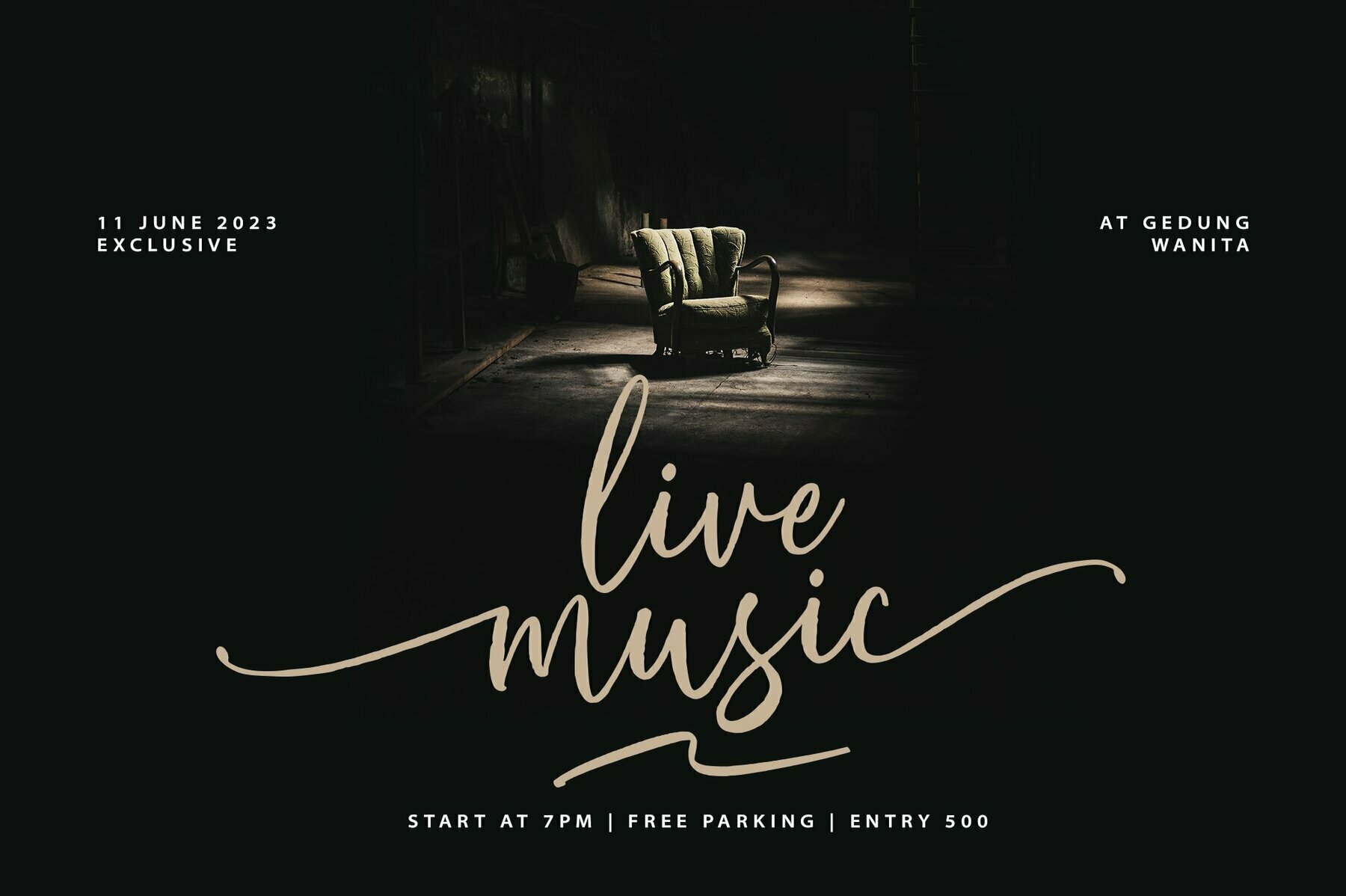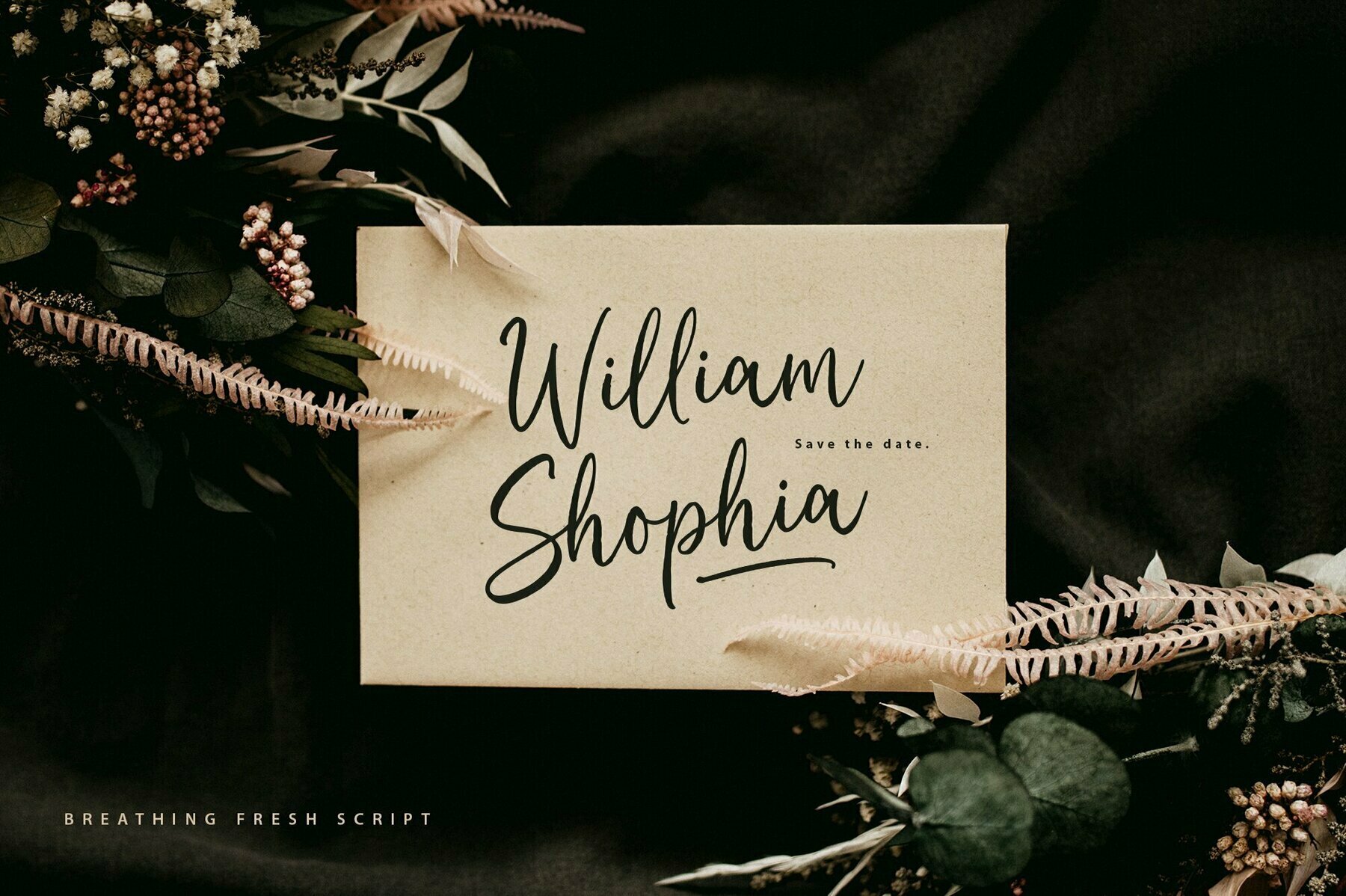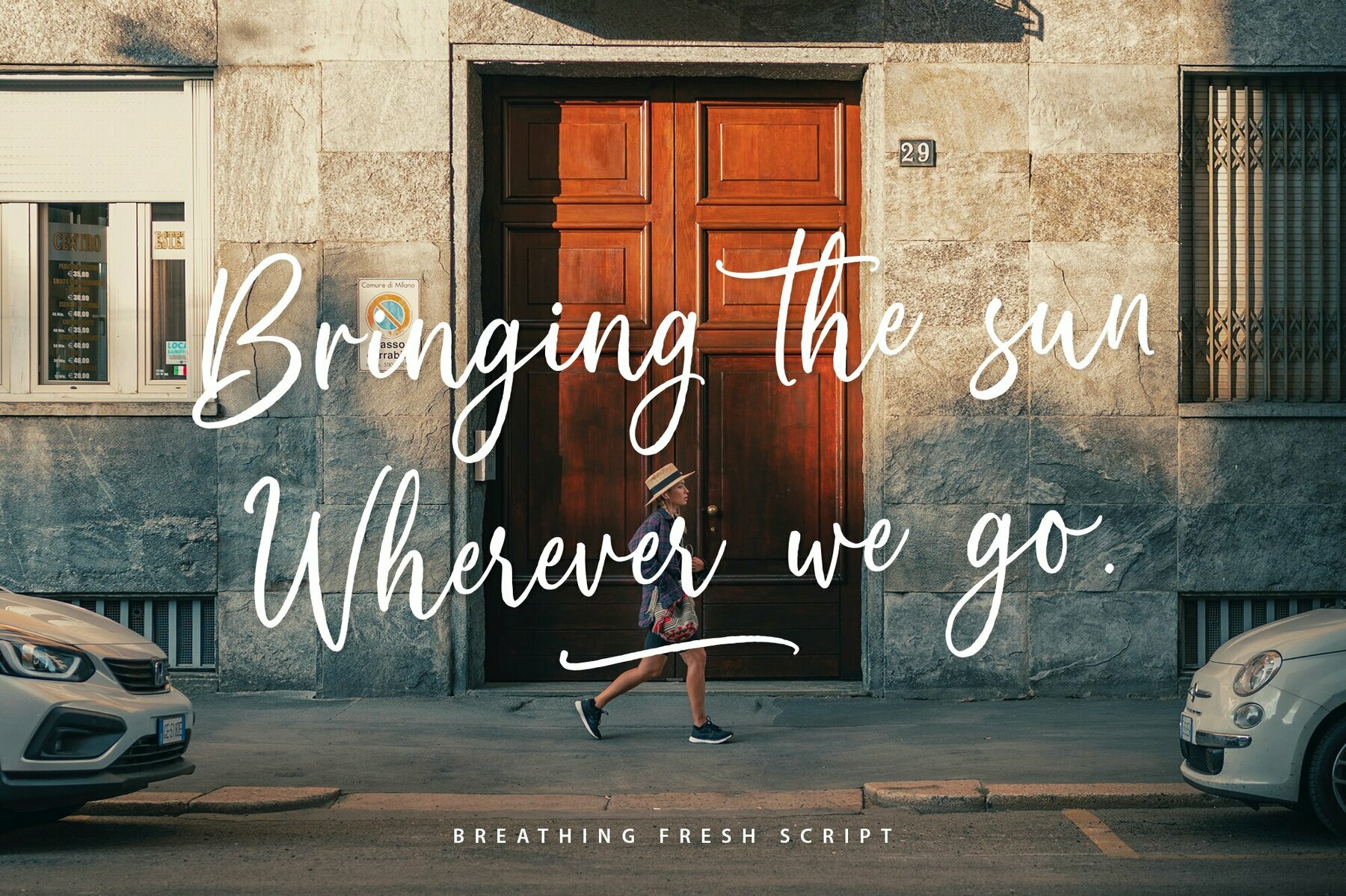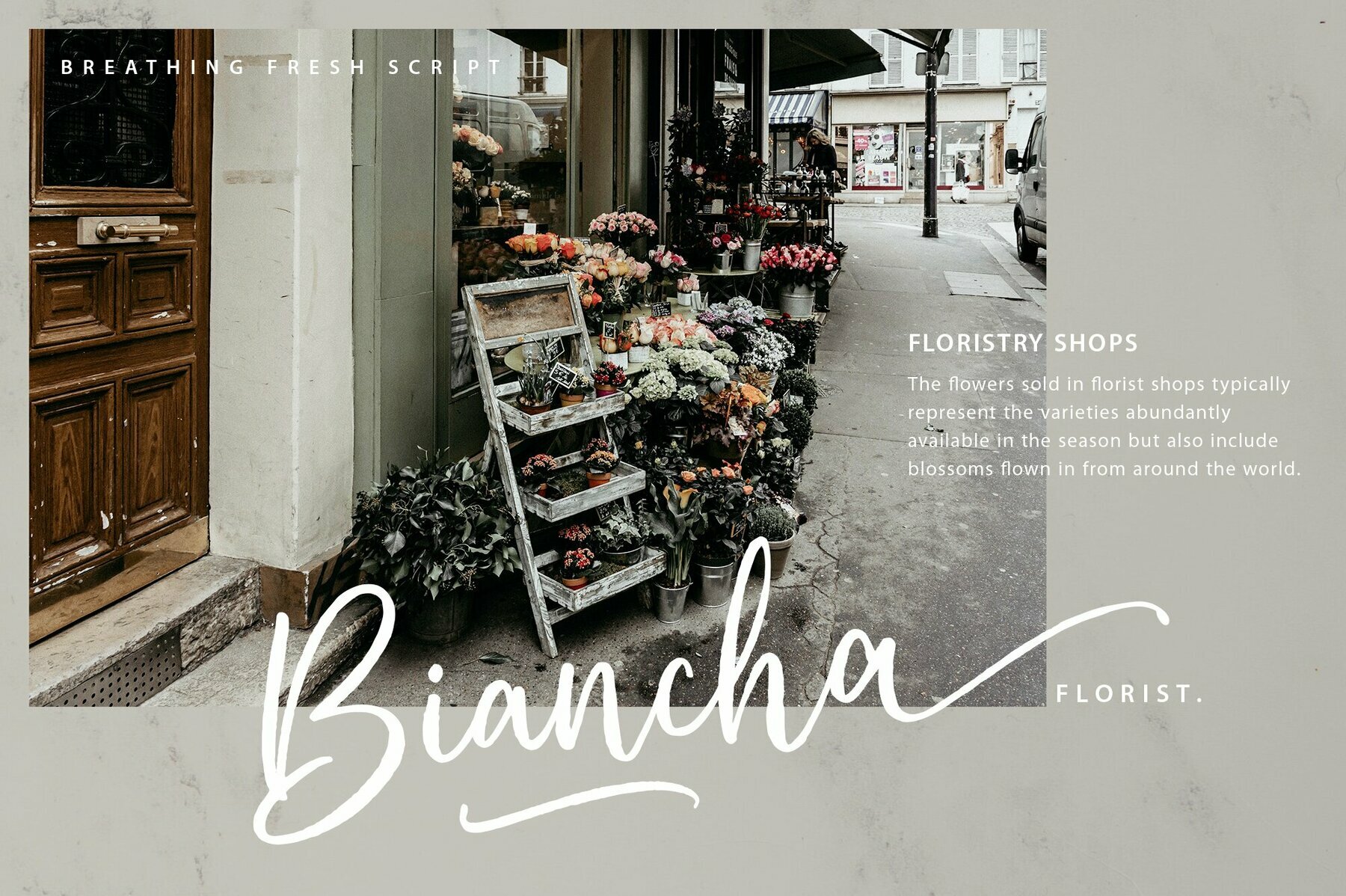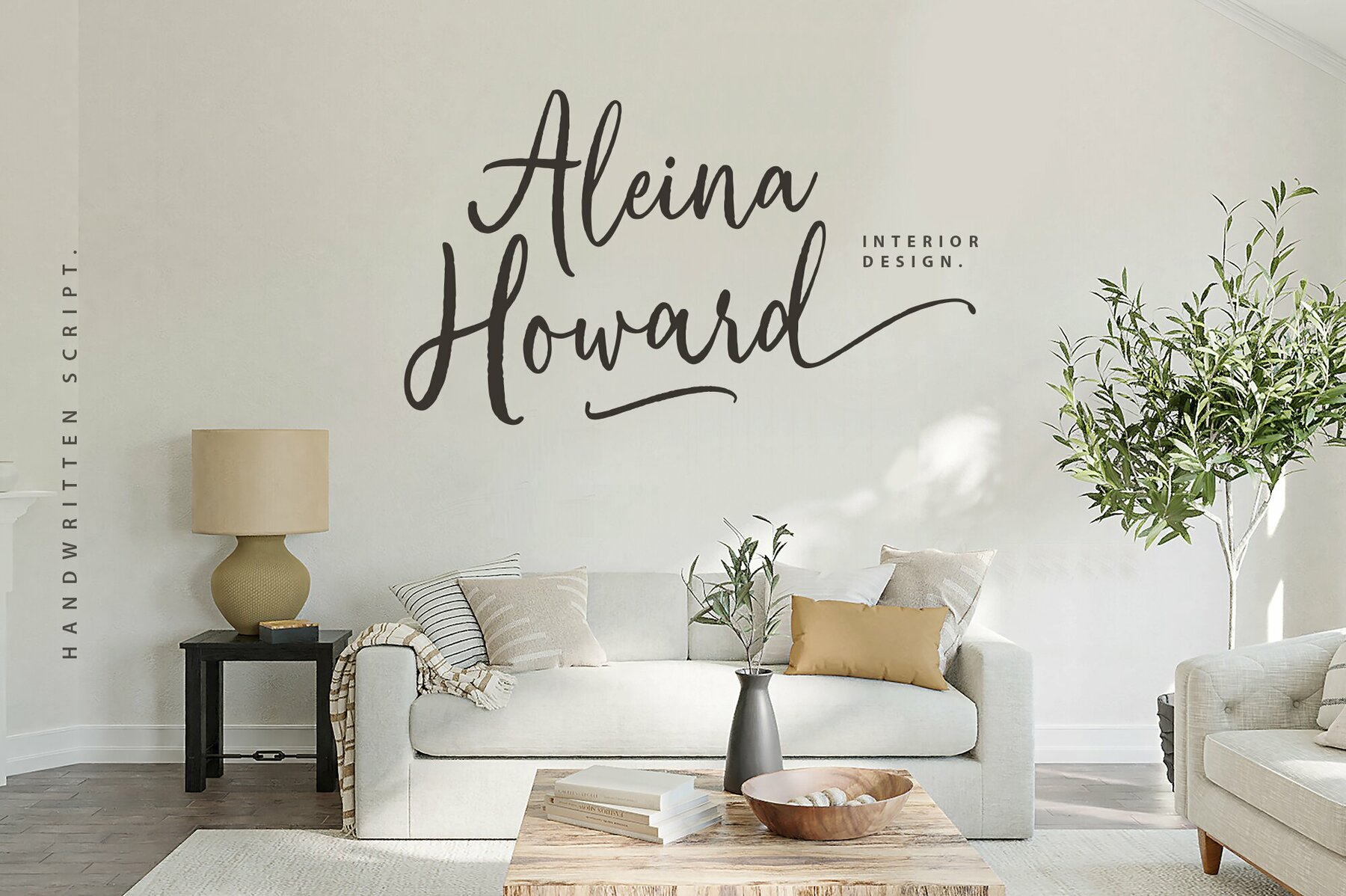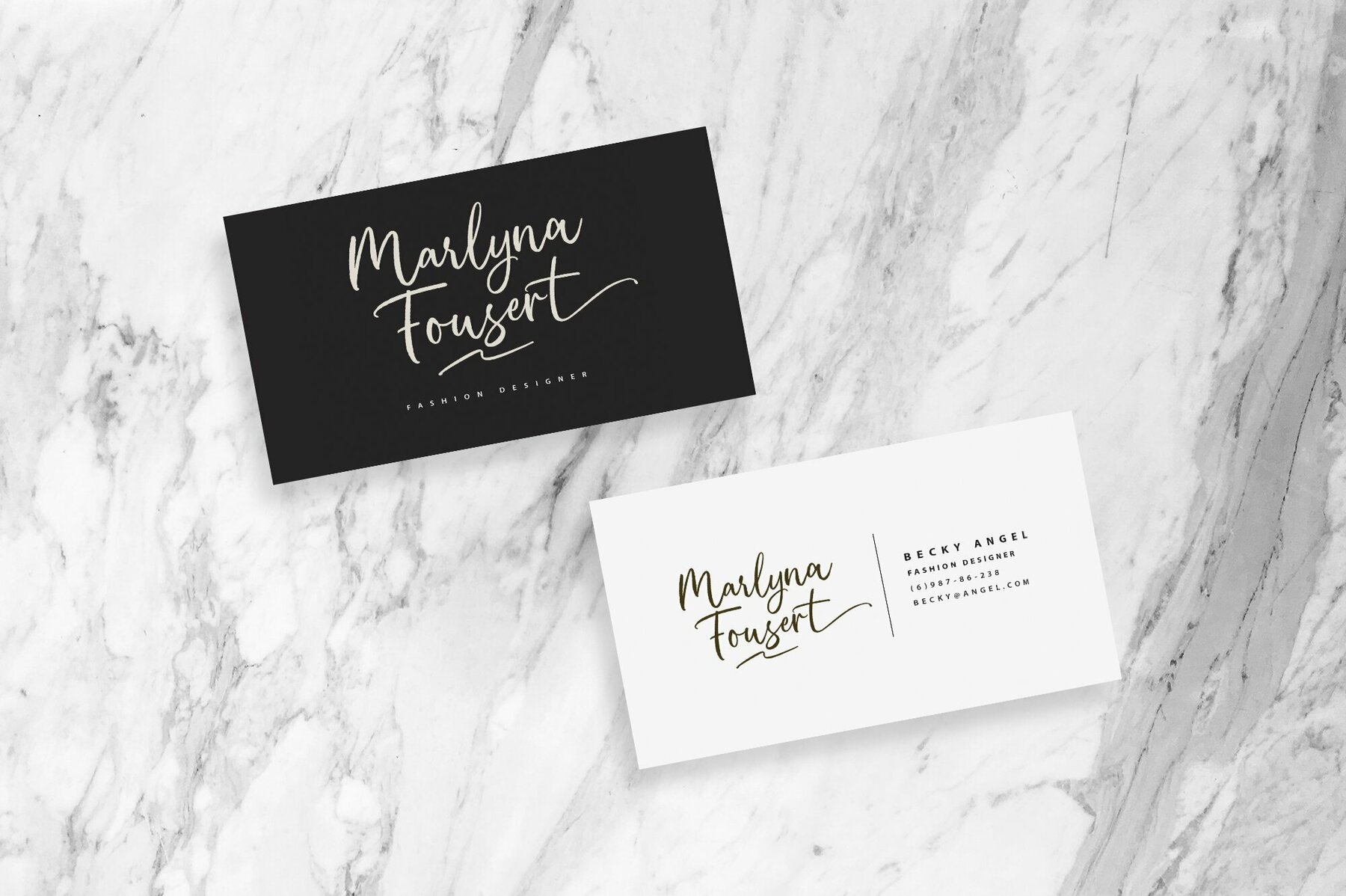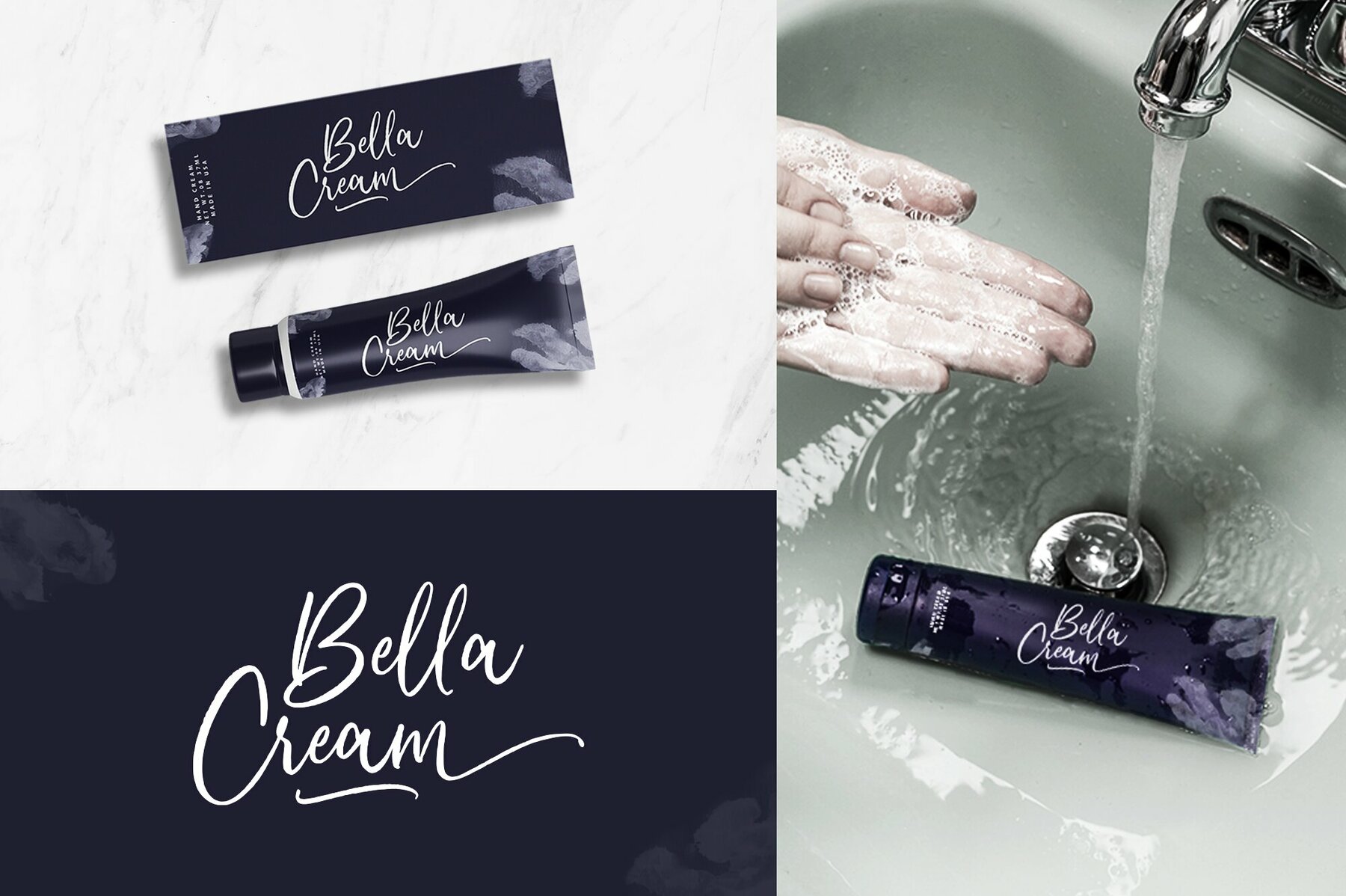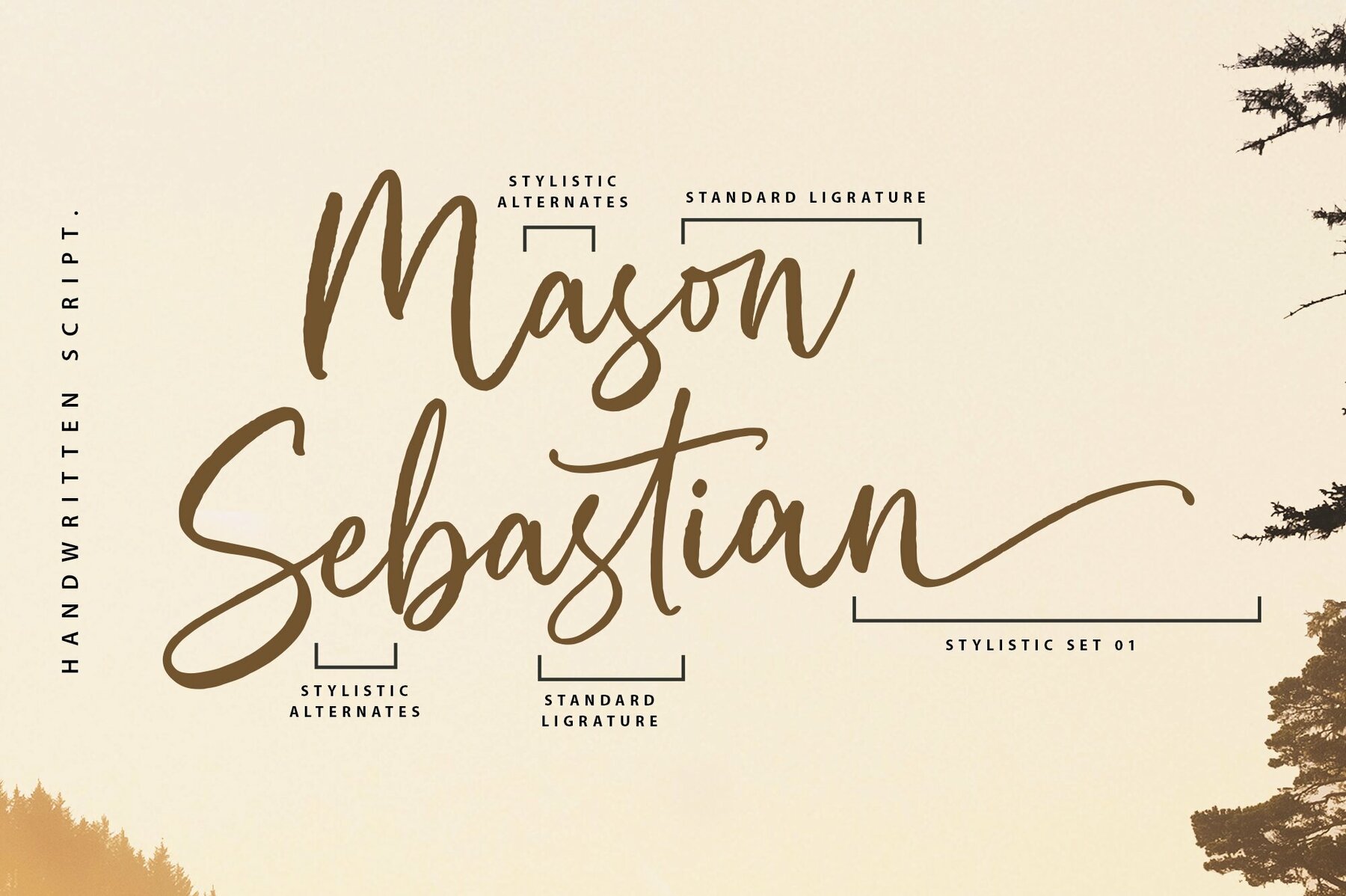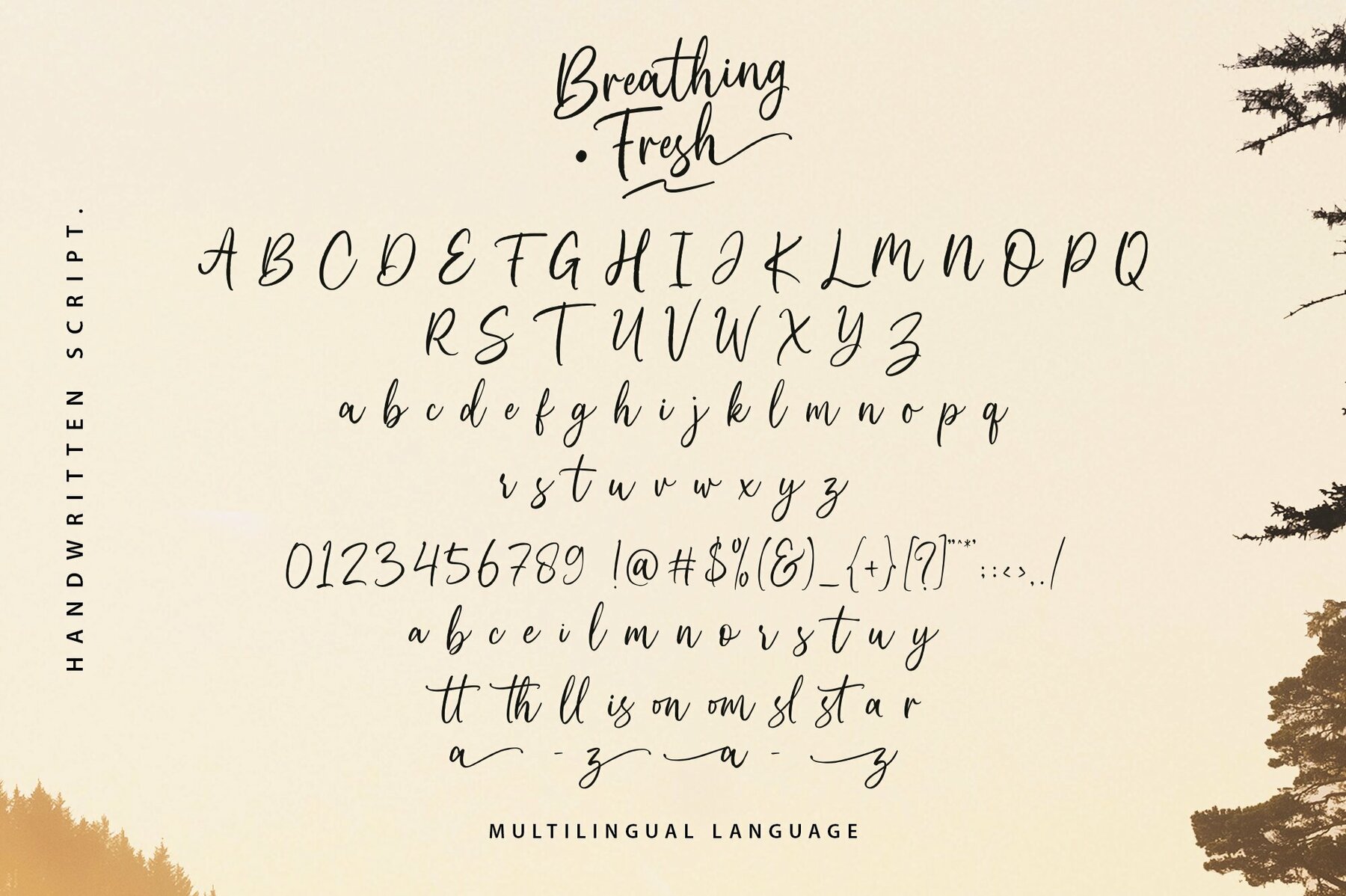
Breathing Fresh Script Font
Breathing Fresh Script
The Breathing Fresh Script offers a fluid and organic handwritten style, perfect for adding a personal touch to various creative projects. Its unique strokes and flowing lines make it suitable for an array of applications, from quotes to branding and even more personal uses like wedding invitations. Employ it to bring a charming handwritten feel to logos, branding materials, website cards, and more. Ideal for both professional designs and personal decor projects.Breathing Fresh Script: Versatile Handwritten Font